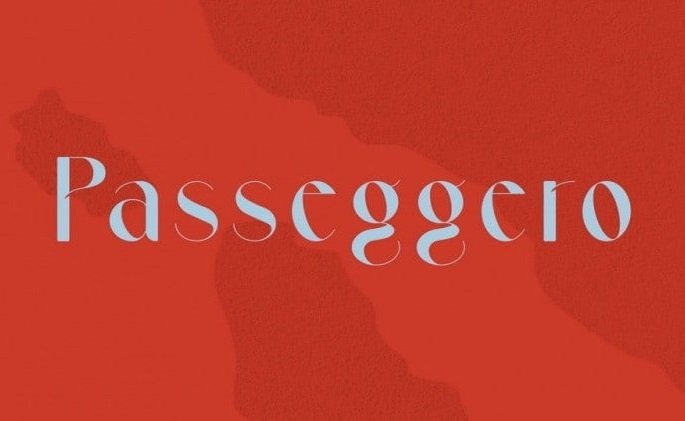
Passeggero Font
Passeggero Sans Serif Font is a friendly sans serif font suited for Christmas postcards, event invites, or just to let someone know that you care. This font is inspired by the elegance of the movie Professione Reporter, by Michelangelo Antonioni, and the ennui in its places. This decorative display font is both modern and nostalgic and is well-suited to logos, headlines or short to medium length texts where a bold distinctive style is required.